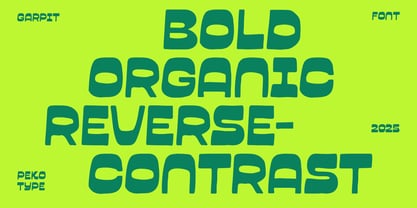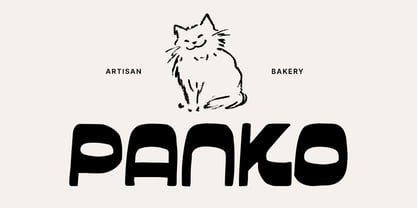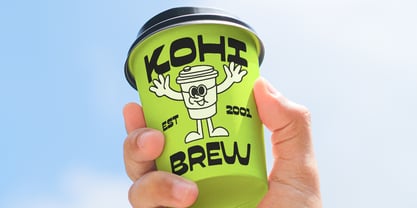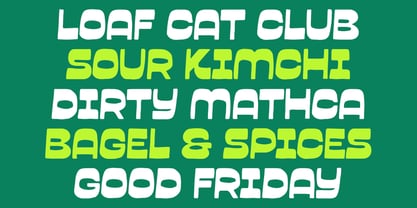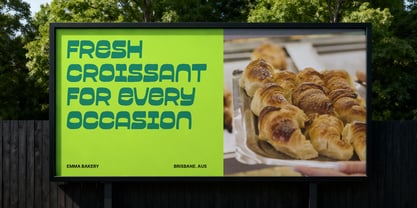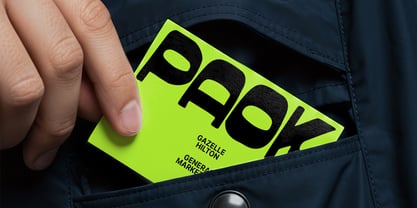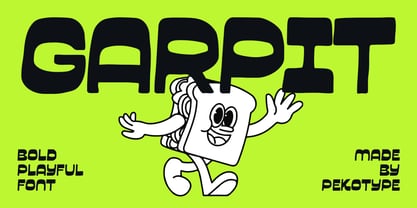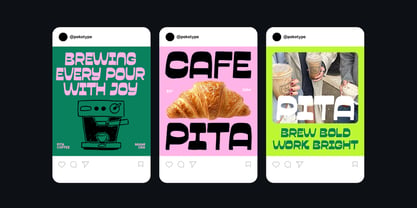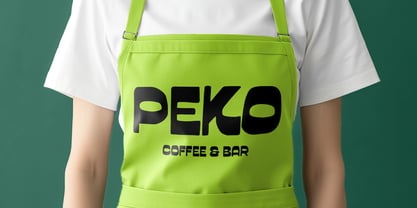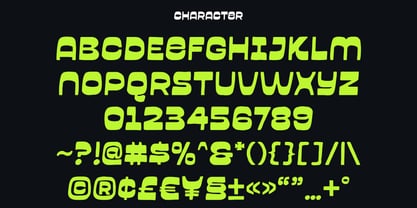
Garpit
von Pekotype
Die Schriftfamilie Garpit wurde von Galang Bryan entworfen und von Pekotype veröffentlicht. Garpit enthält 1 Stile. Mehr über diese Familie
GARPIT is a bold and playful reverse-contrast display font with an organic style that instantly grabs attention. Its chunky shapes, unique curves, and all-caps design make it perfect for logos, branding, packaging, posters, social media content, and promotional materials. Designed to be fun, memorable, and full of personality, GARPIT helps your designs stand out while keeping a friendly and modern feel.
Designer: Galang Bryan
Foundry: Pekotype